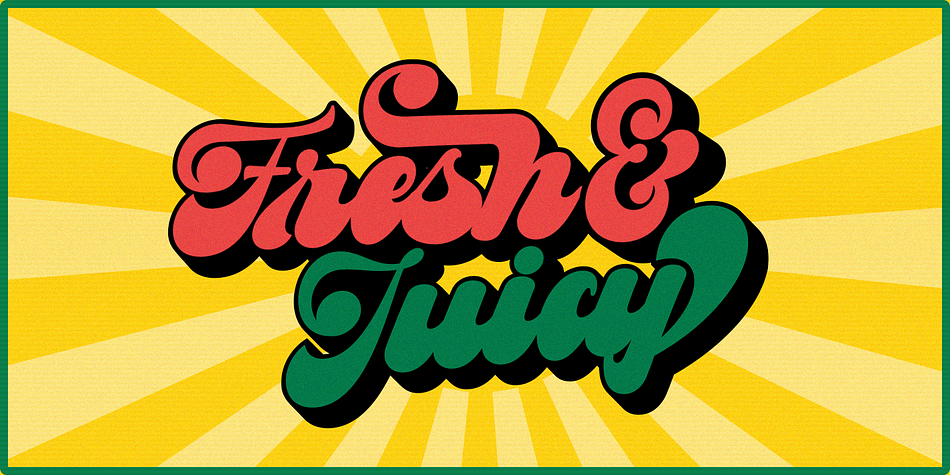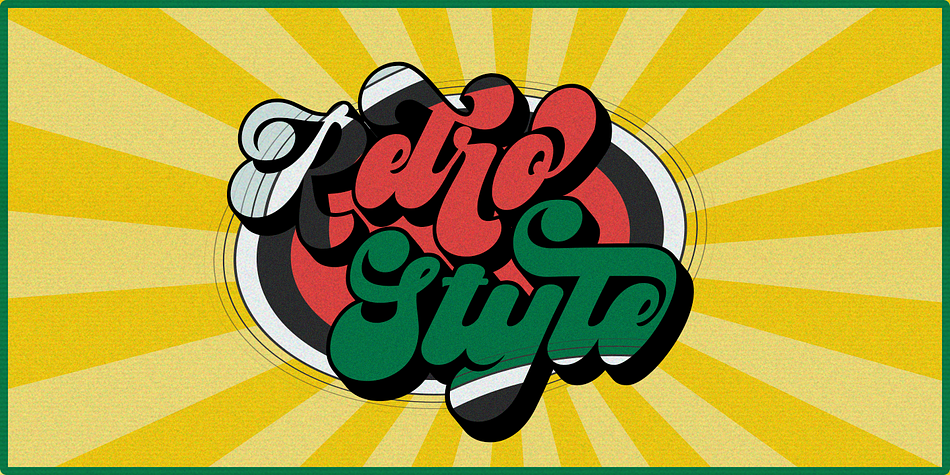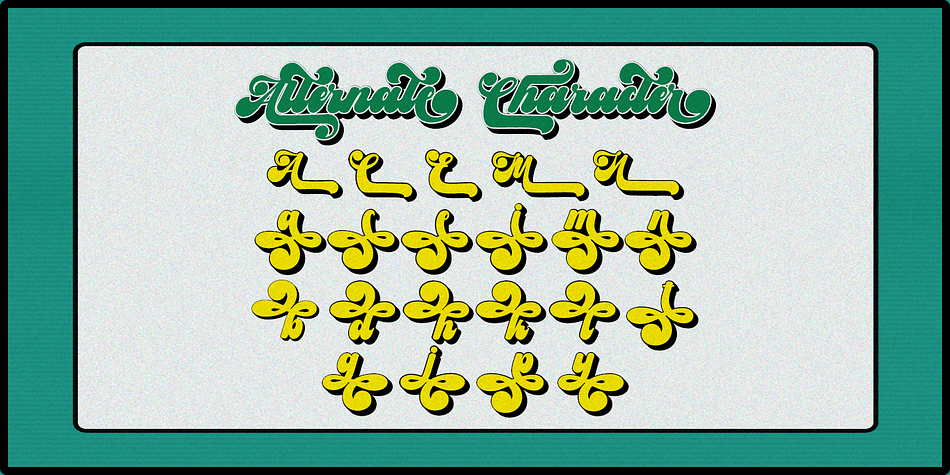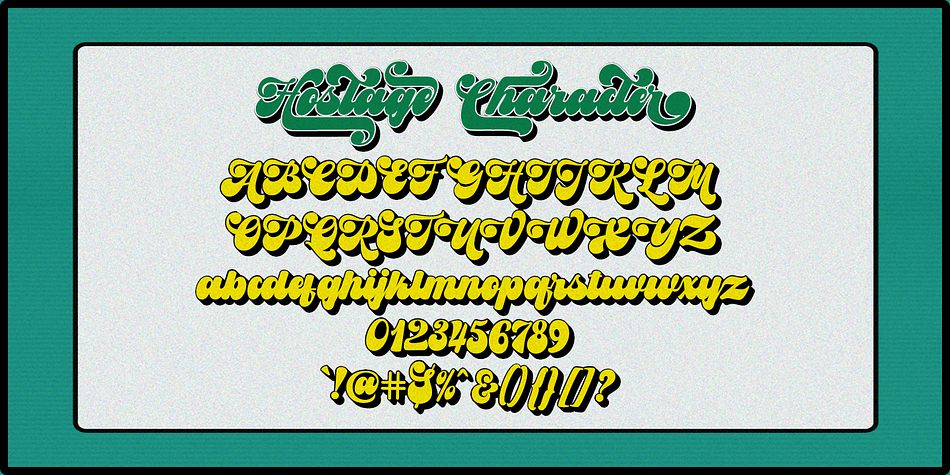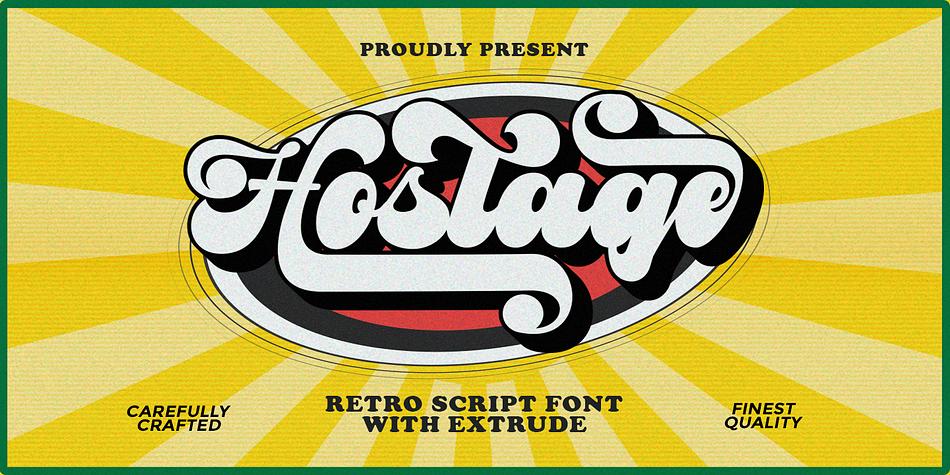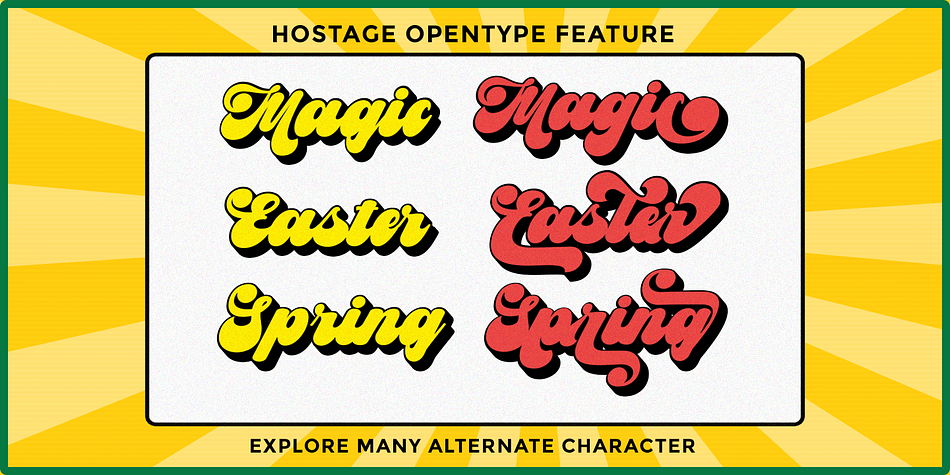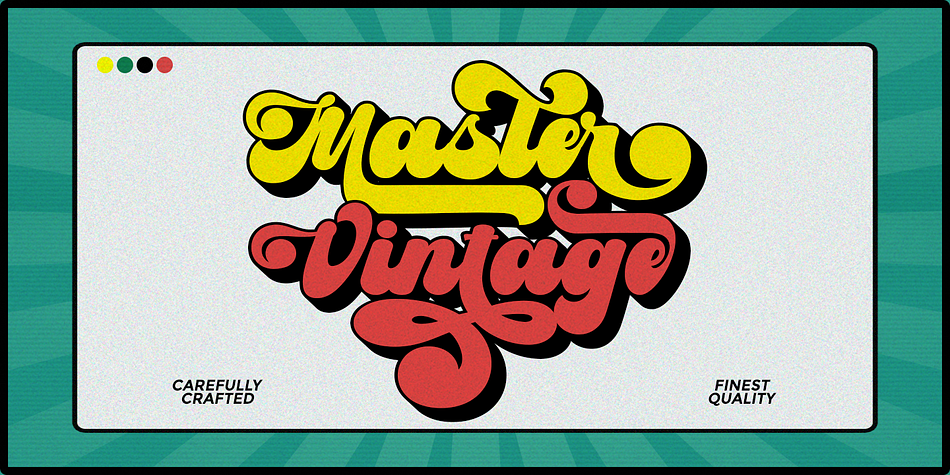
Hostage
Hostage is a brush script, display serif and retro font family. This typeface has six styles and was published by LetterFresh.
Introducing, Hostage. A retro bold script which will bring you back to 60s feel. This typeface has the extrude version so you can create your retro effect font in ease. This font perfectly made to be applied especially in logo, and the other various formal forms such as invitations, labels, logos, magazines, books, greeting / wedding cards, packaging, fashion, make up, stationery, novels, labels or any type of advertising purpose.
Styles Brush Script, Display Serif, Retro